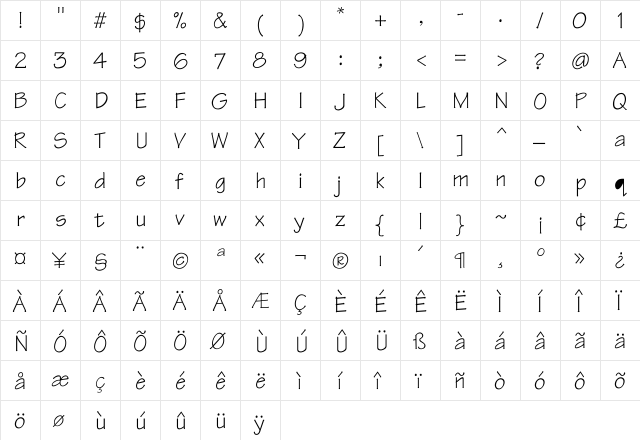
Tontil Regular Font Preview
Tontil Regular
Design Context for Tontil Typeface
Tontil is a composed and adaptable typeface that performs quietly and consistently across a wide range of design contexts.
Pro Tip: Use Tontil in both headline and body roles to test its range before committing to a single application.